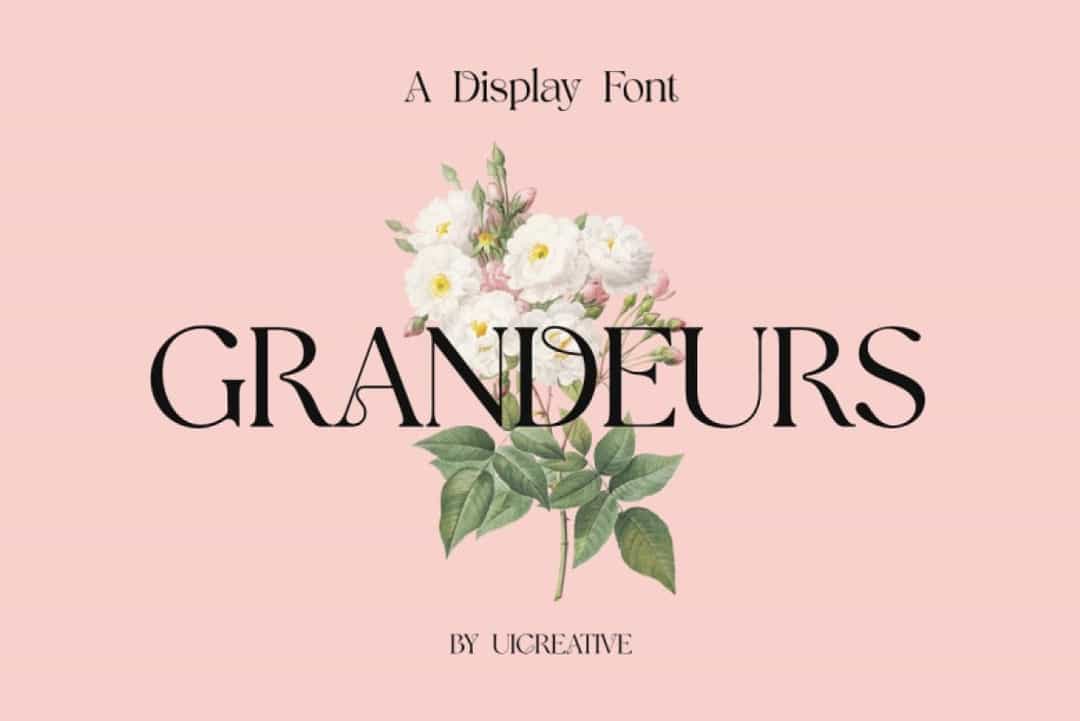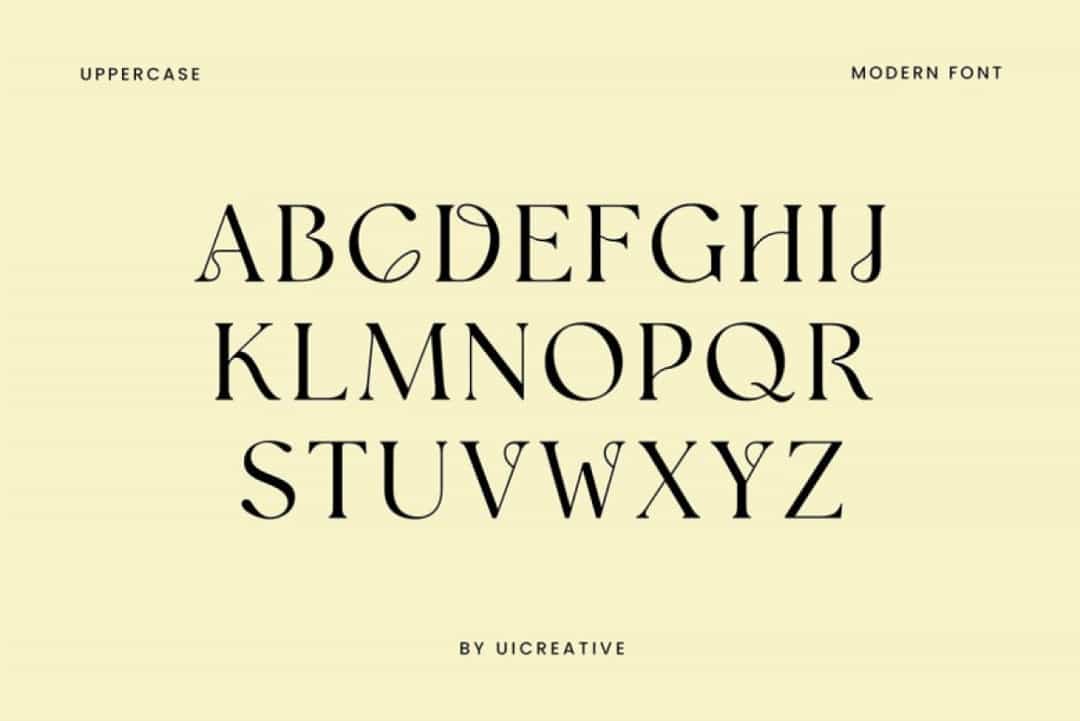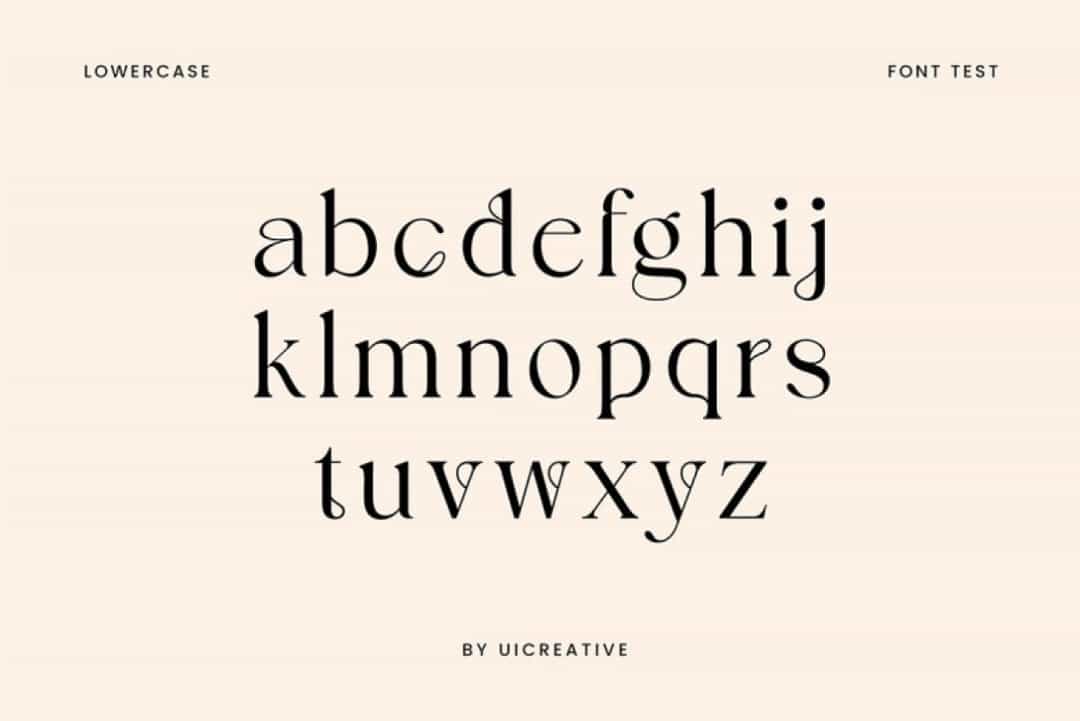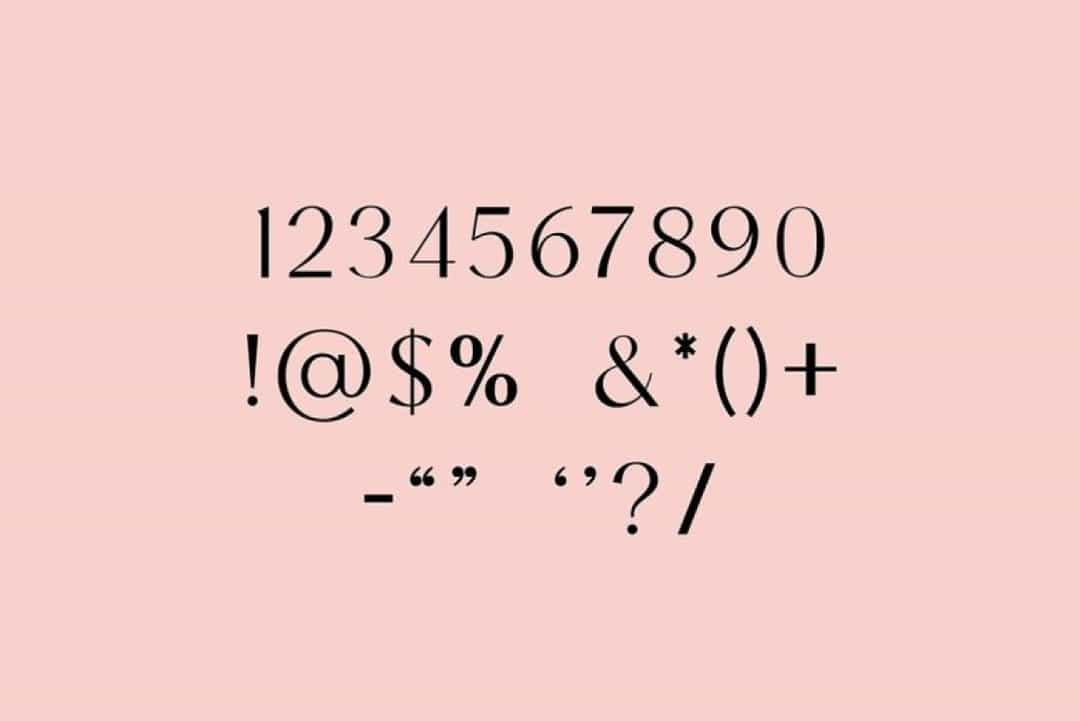
Grandeurs is an elegant show font with contemporary appeal that’s suitable for many projects – stationary, signatures, logos wedding, typography quote books/magazine covers, headers for websites, branding clothing packaging as well as many others. Fashion related branding or editorial designs display both feminine and masculine qualities of Grandeurs font.